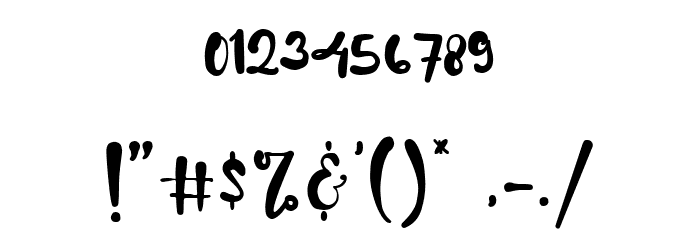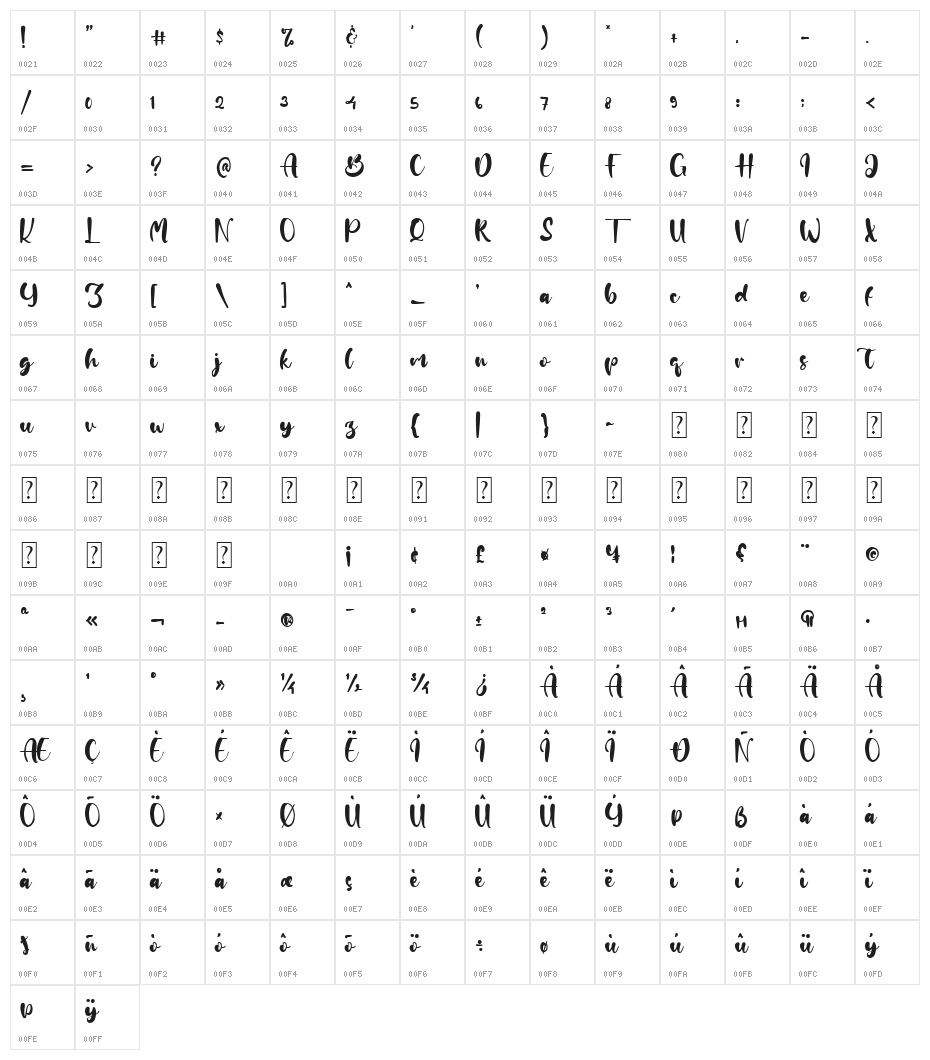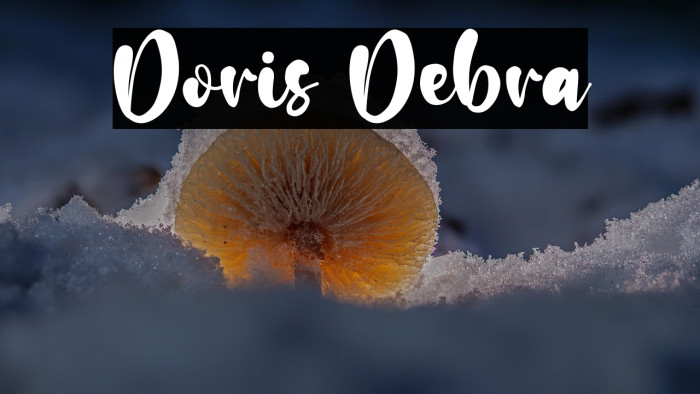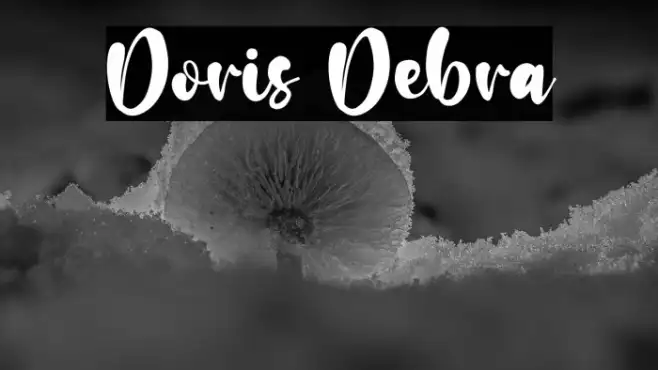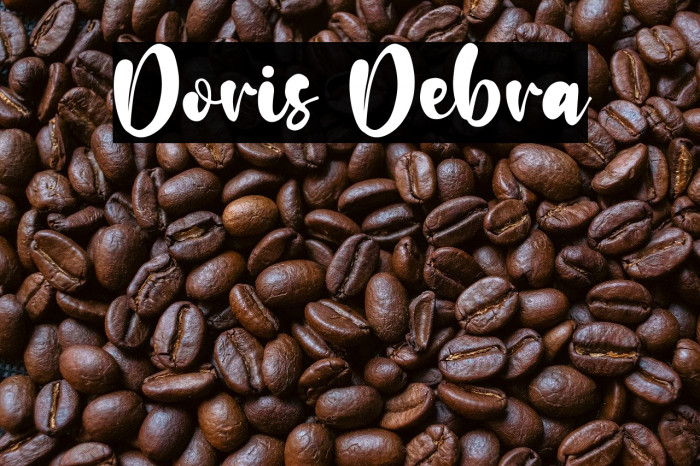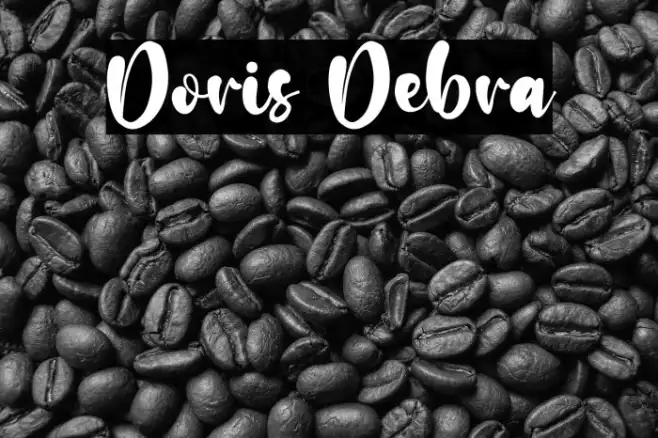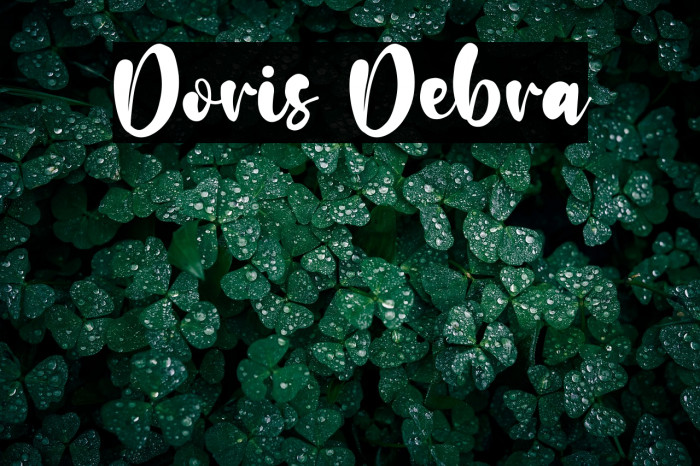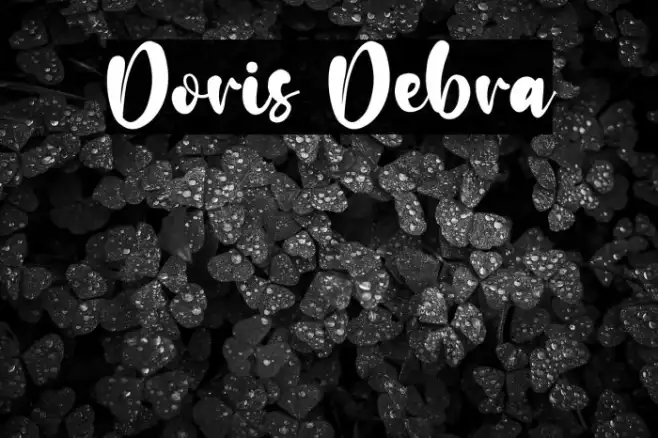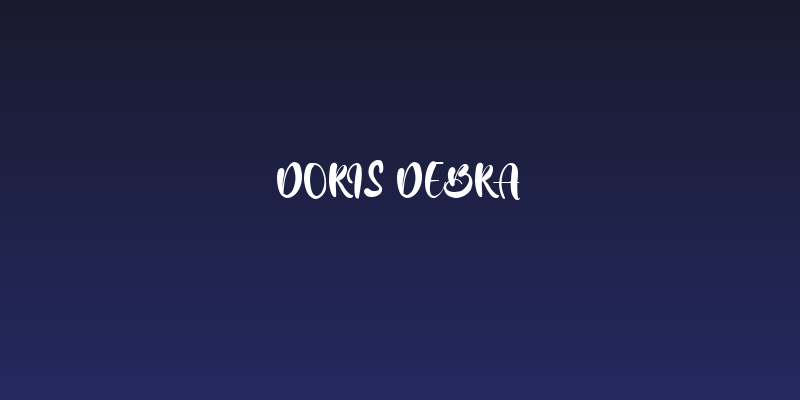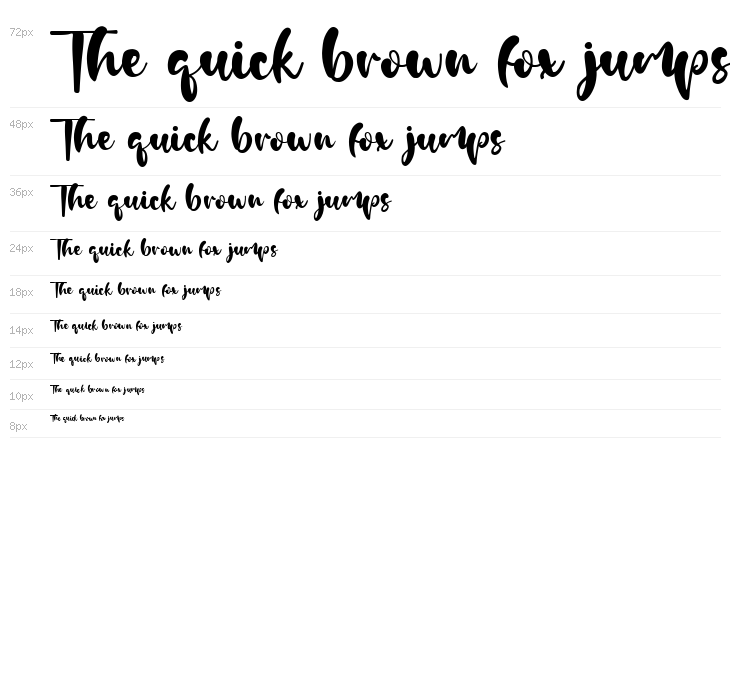
Doris Debra Font
Doris Debra Description
This font features a bold and expressive script style, characterized by its flowing, cursive letterforms. The uppercase letters are particularly striking, with dramatic loops and flourishes that convey a sense of elegance and creativity. The lowercase letters maintain a consistent style, with smooth curves and a playful, handwritten feel. The numbers and special characters are designed to complement the overall aesthetic, ensuring versatility across various applications. The font's thick strokes and high contrast make it highly legible while retaining a decorative appeal.